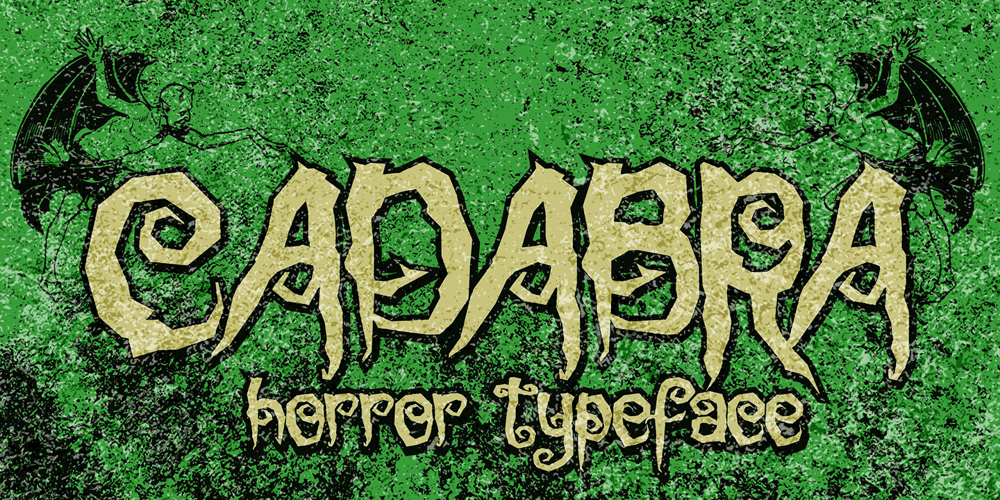
Cadabra
Cadabra font
Cadabra Font Family was designed by Raditya Putra Pratama and published by Raditya Type. Cadabra contains 1 styles and family package options. Cadabra is an incredibly unique and interesting display font. A little bit quirky, this font looks incredibly adept on a wide variety of Halloween contexts!